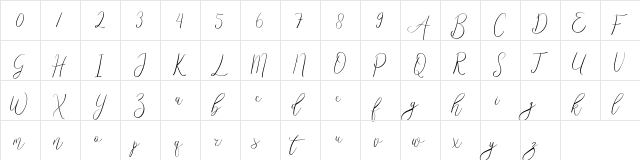
West London Regular
Design Context for West London Typeface
West London is a composed and adaptable typeface that performs quietly and consistently across a wide range of design contexts.
Pro Tip: Pair West London with a font of contrasting weight or personality to build a more expressive typographic hierarchy.